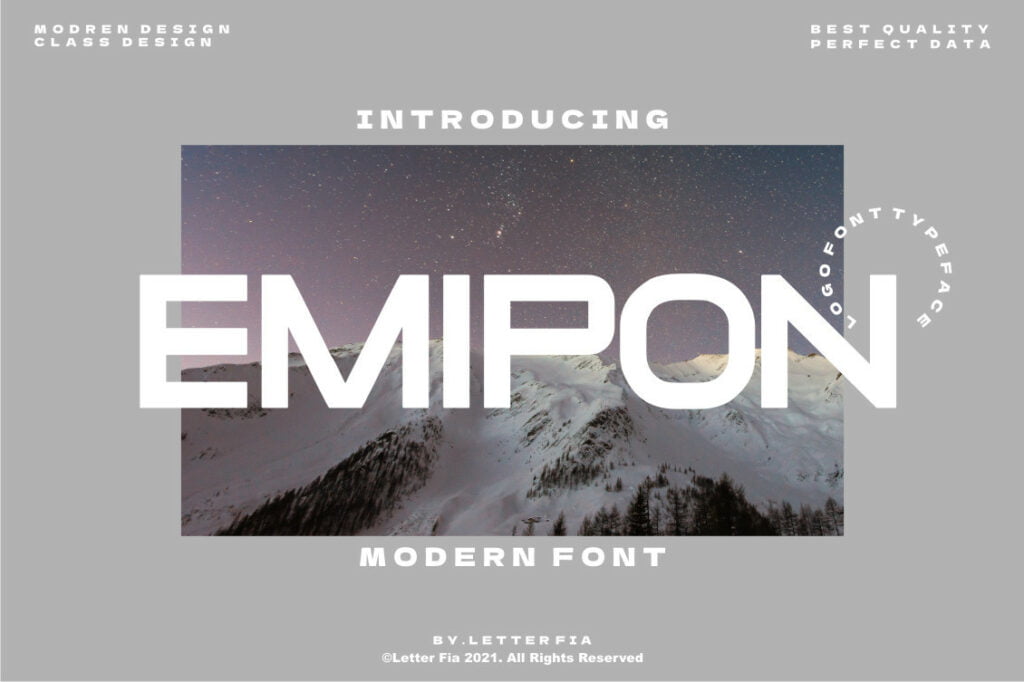
Emipon Font
Emipon is a simple and sharp looking display font, that will truly inspire your works. Use this font for your designs and explore its endless possibilities. This font is free for PERSONAL USE.
Emipon Sans Serif Font